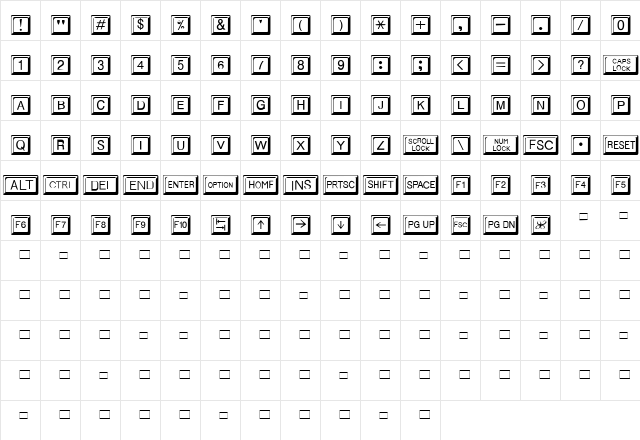
Tastatur Regular Font Preview
Tastatur Regular
Design Context for Tastatur Typeface
Tastatur is a composed and adaptable typeface that performs quietly and consistently across a wide range of design contexts.